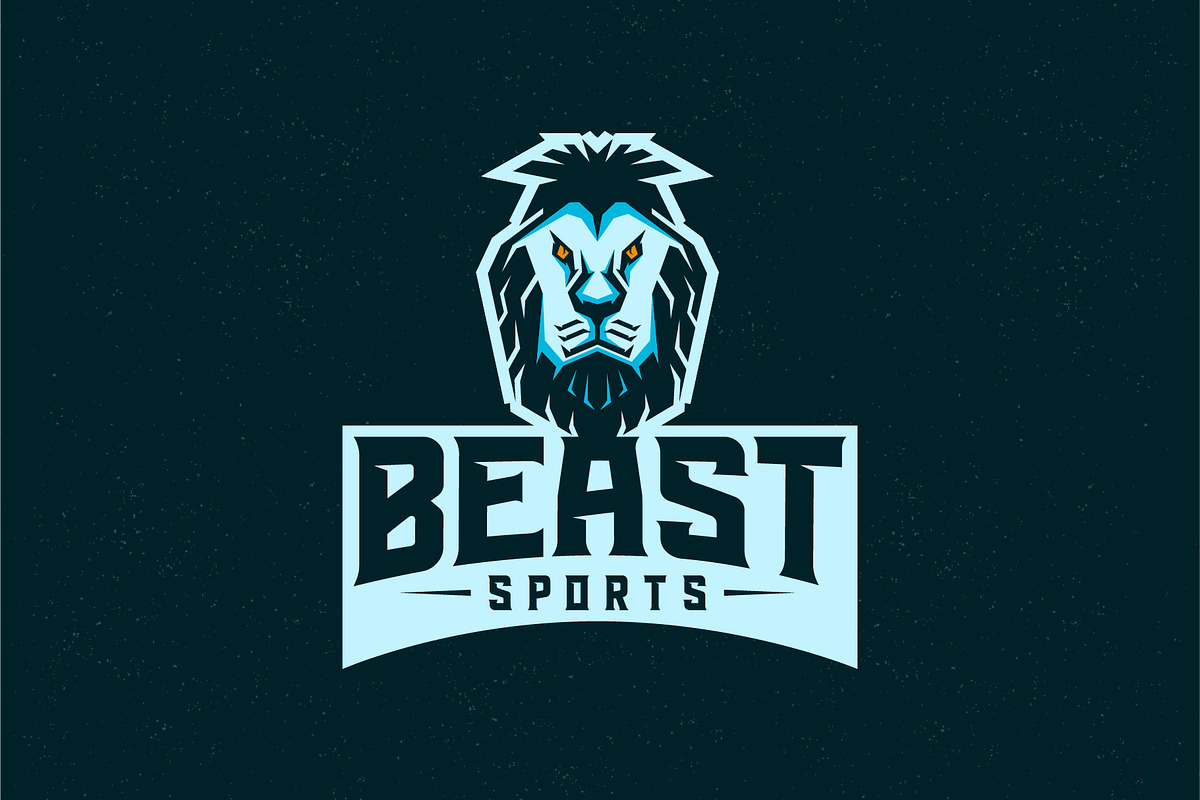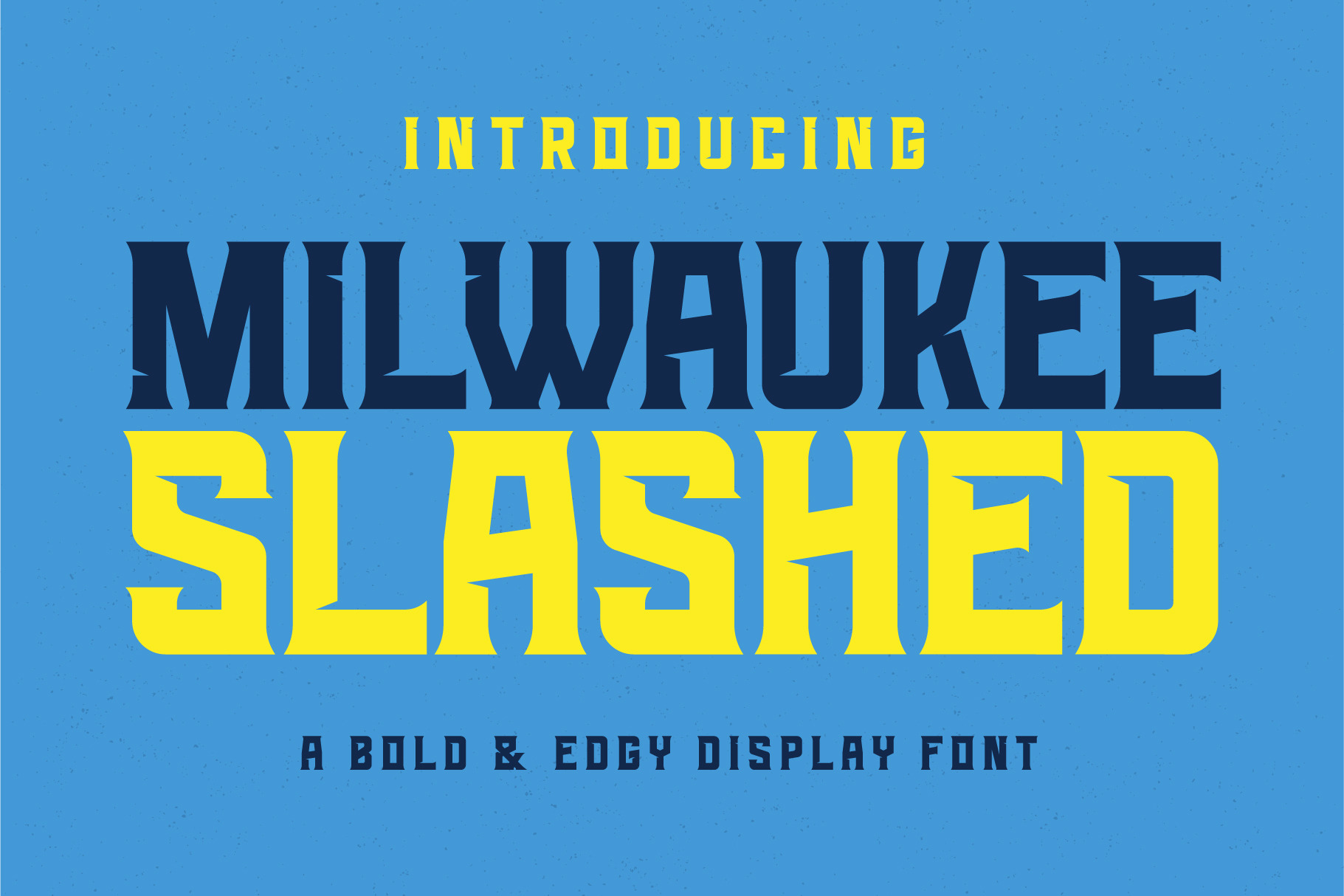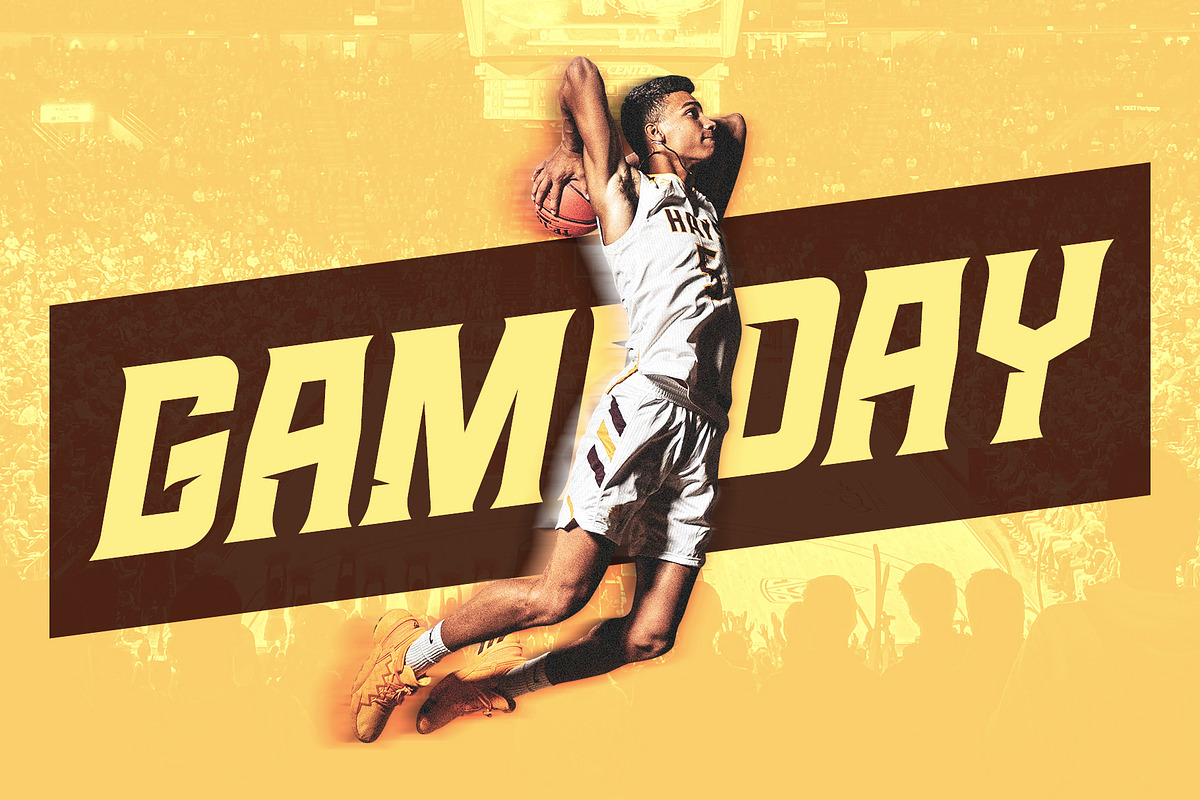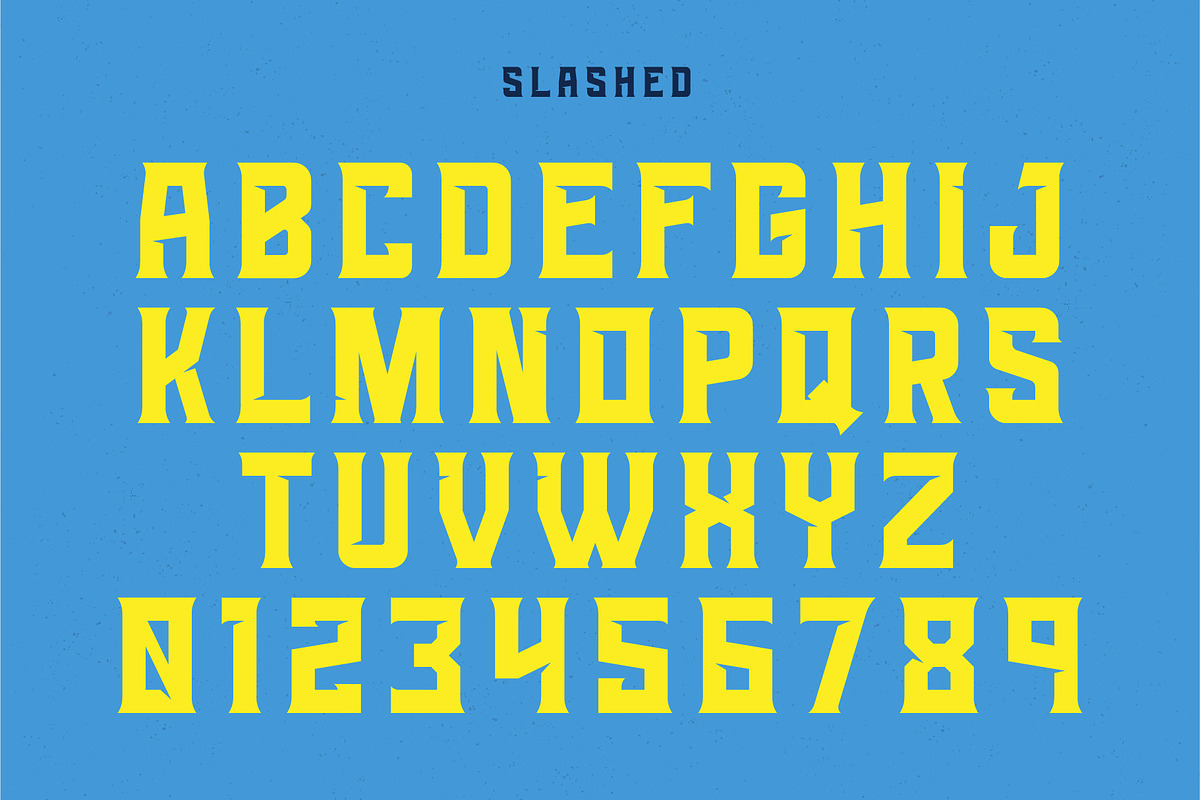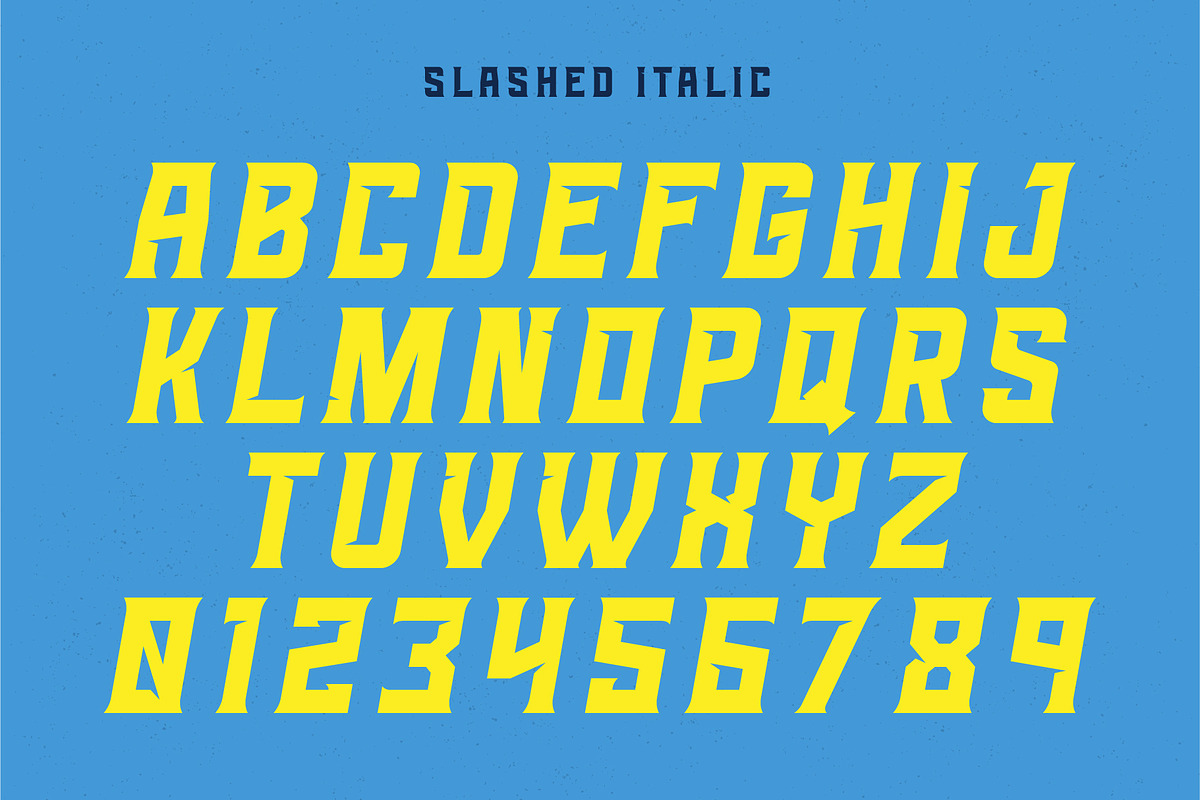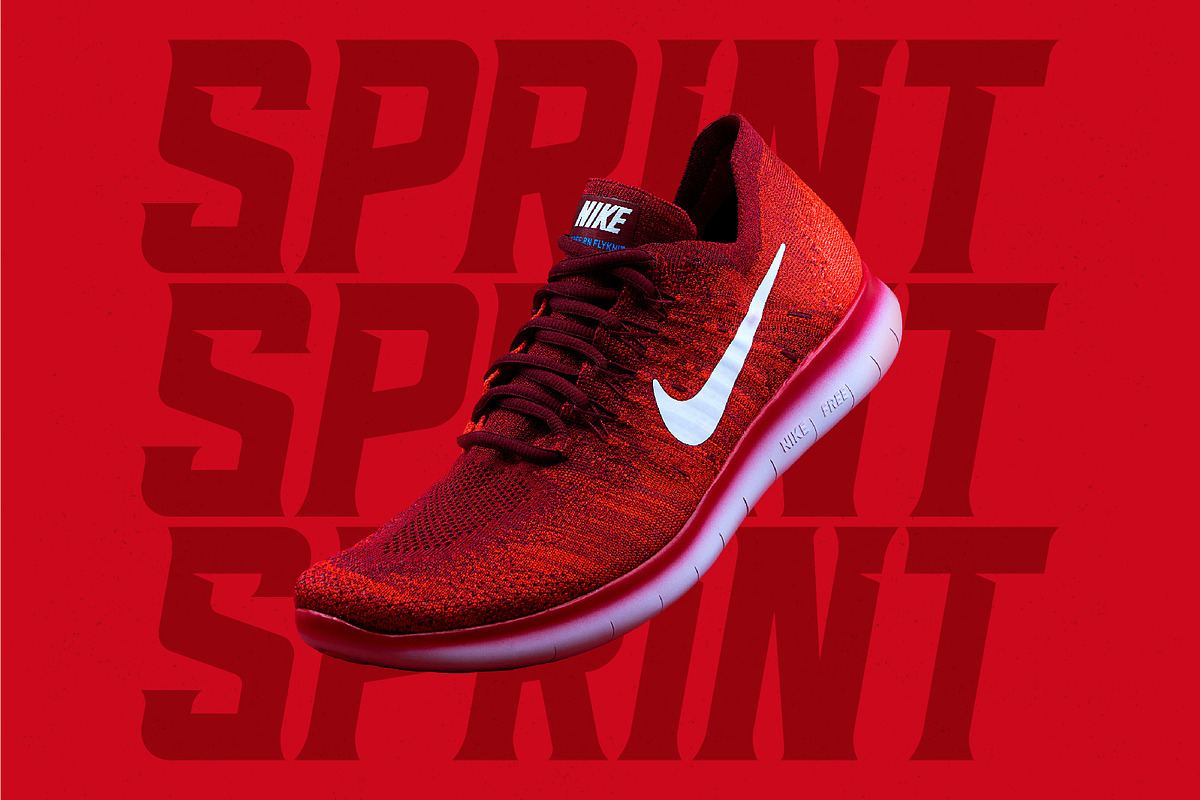
MILWAUKEE – Slashed Display Font
MILWAUKEE SLASHED is a bold & edgy display font addition to the MILWAUKEE Font Family. This font is inspired by the industrial history of Milwaukee and vintage beer print ads. MILWAUKEE is a strong font with incredibly diverse usability. MILWAUKEE SLASHED is particularly great for using in sports logos, social media graphics, sports & fitness graphics and packaging.